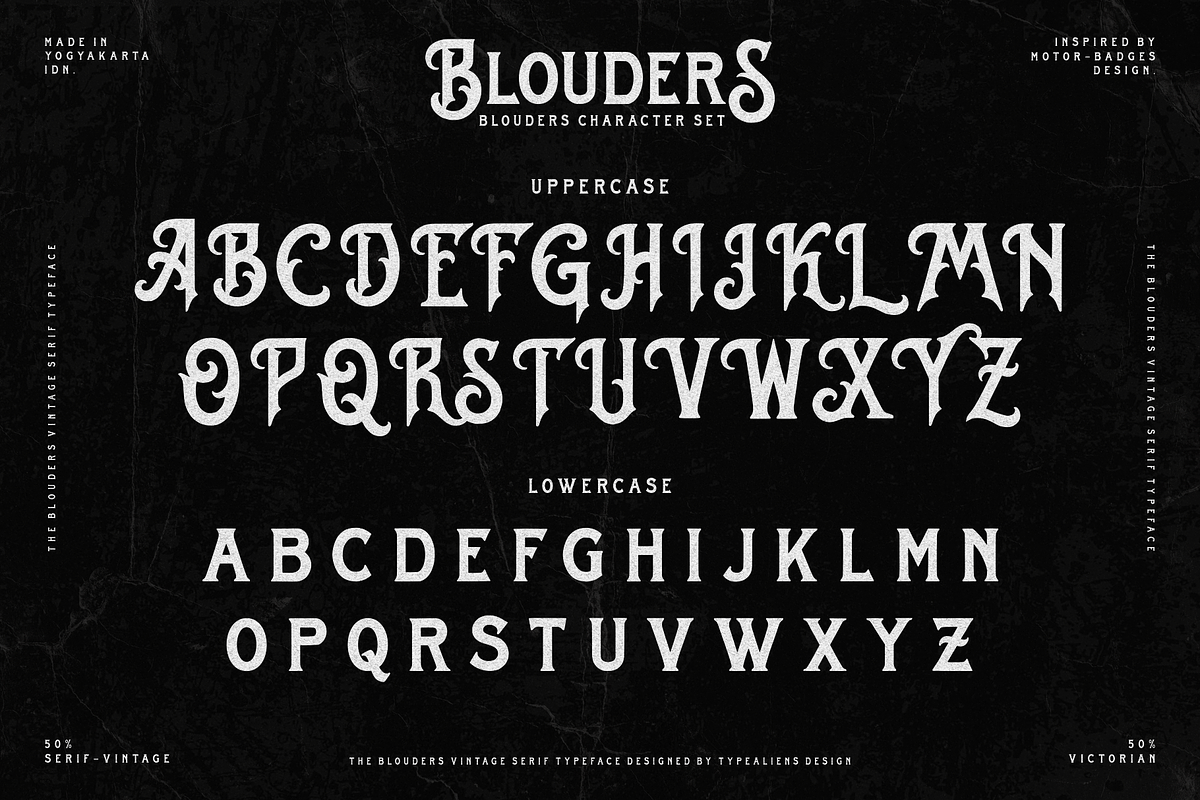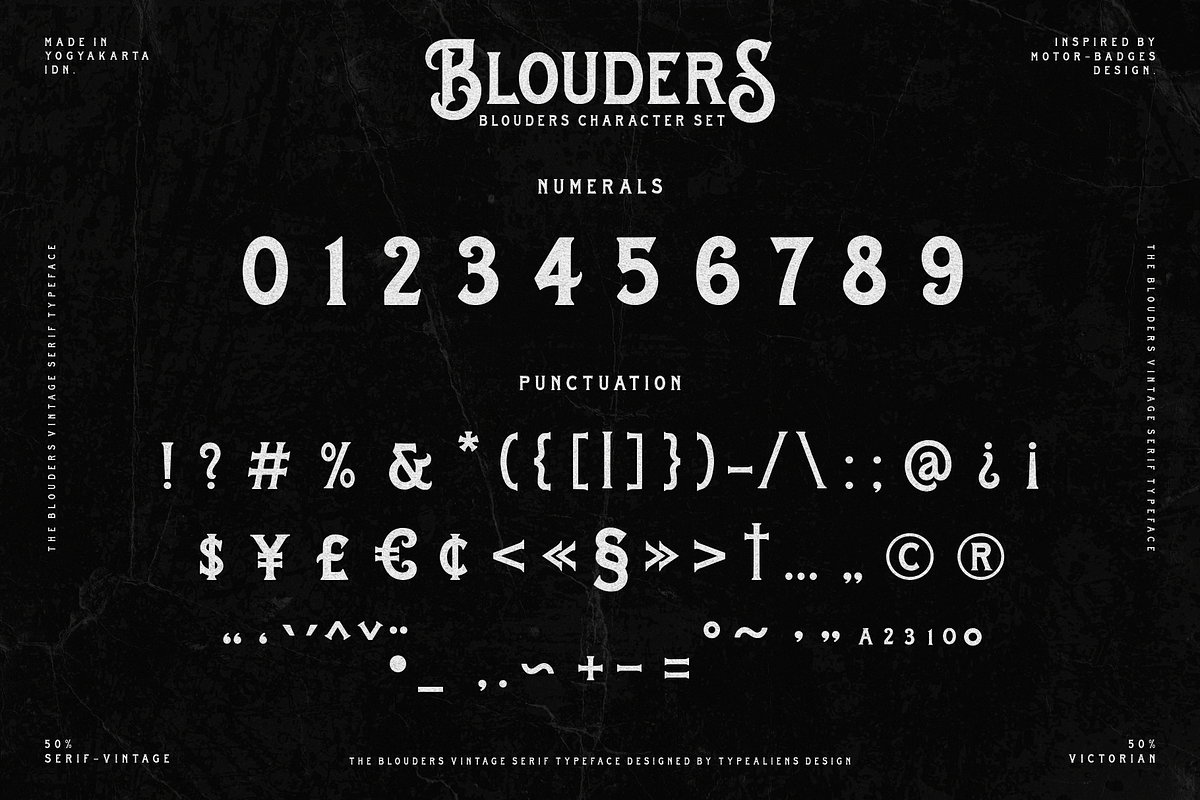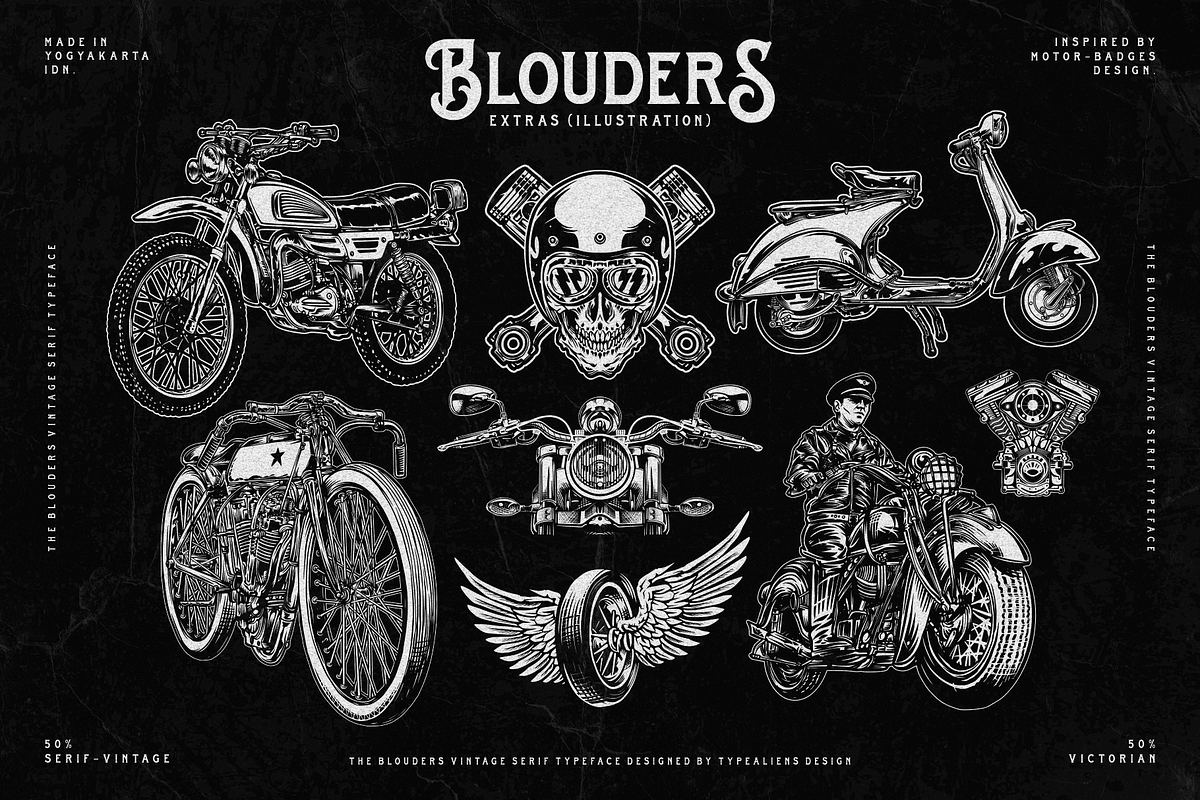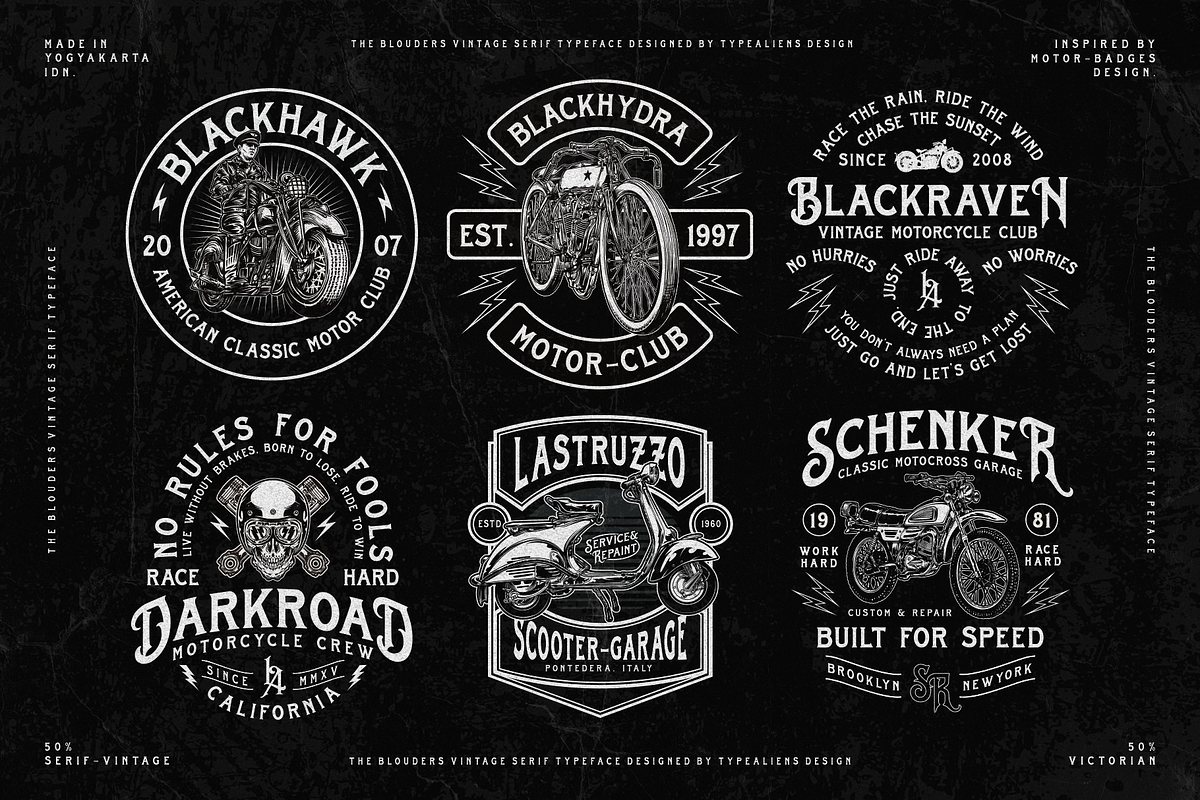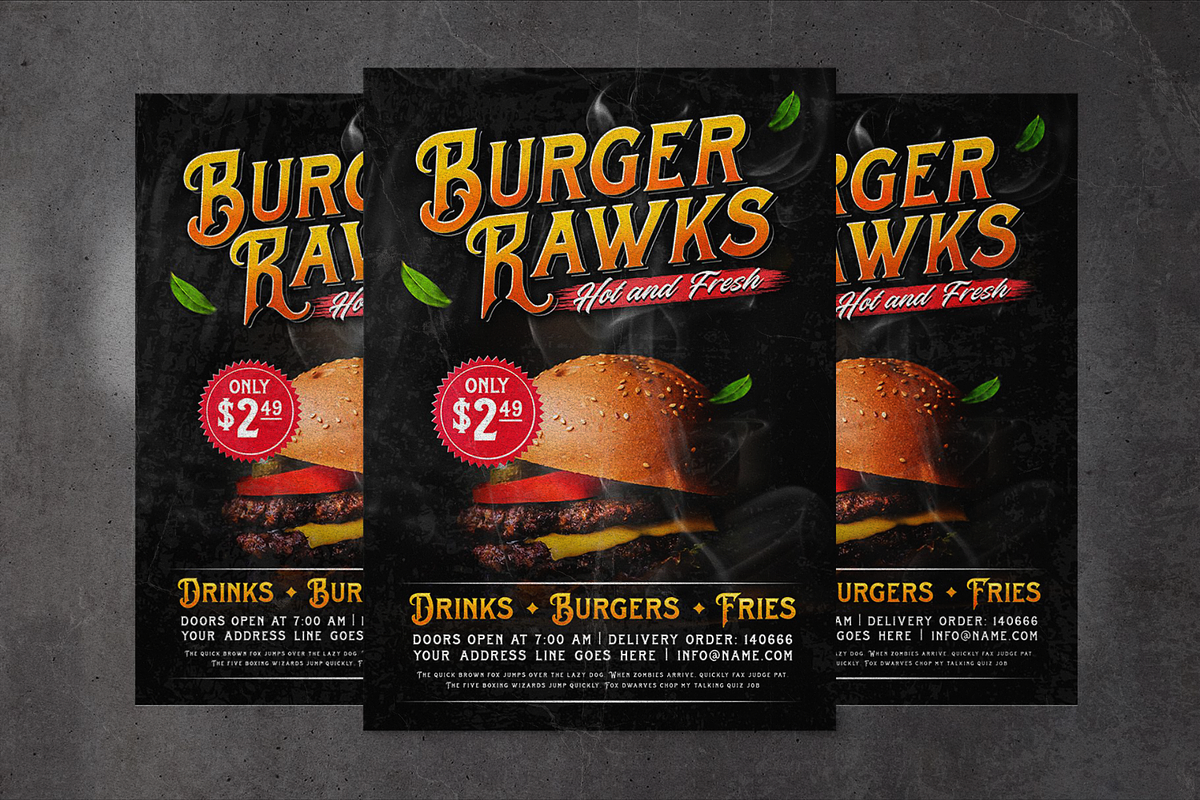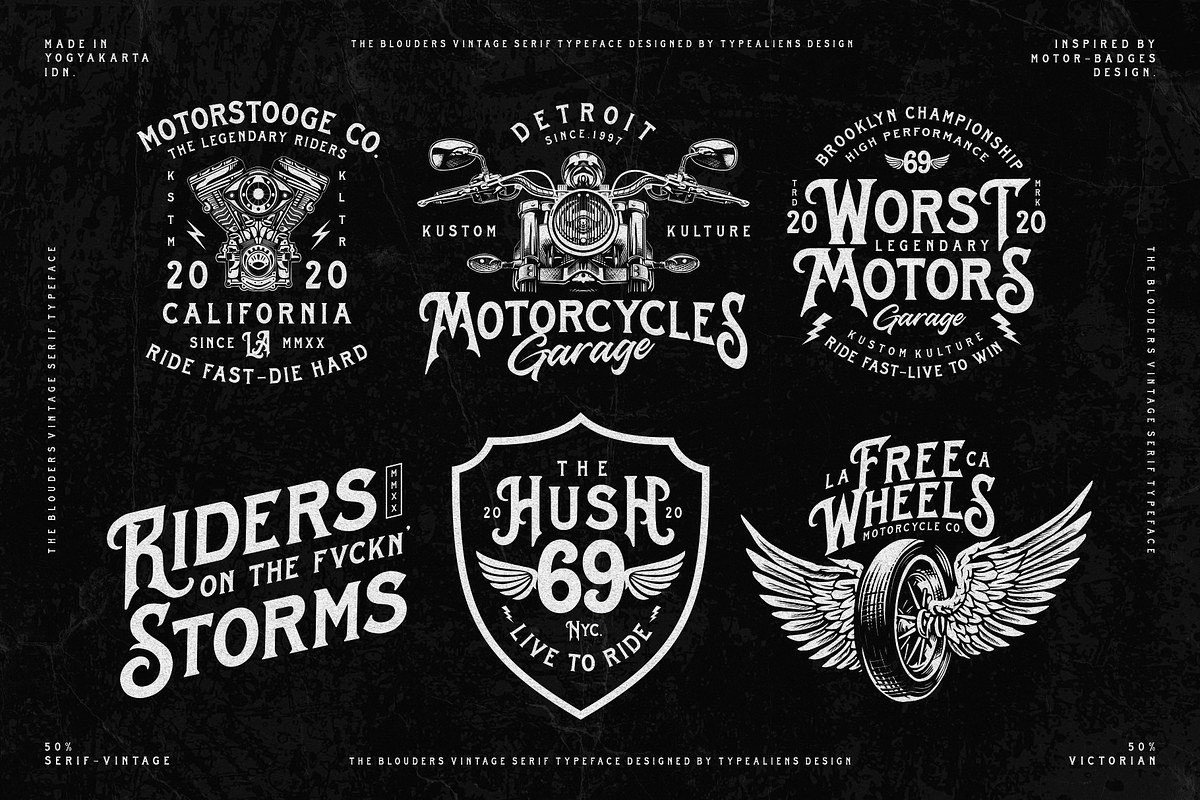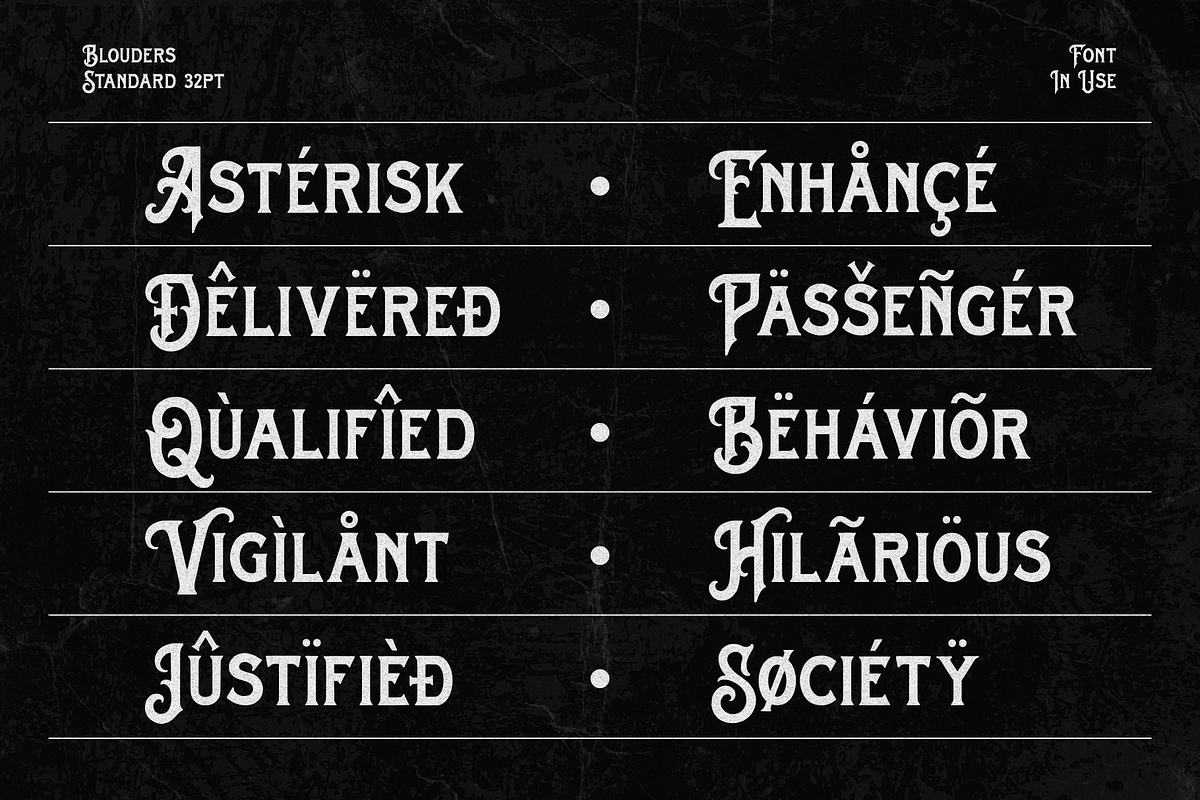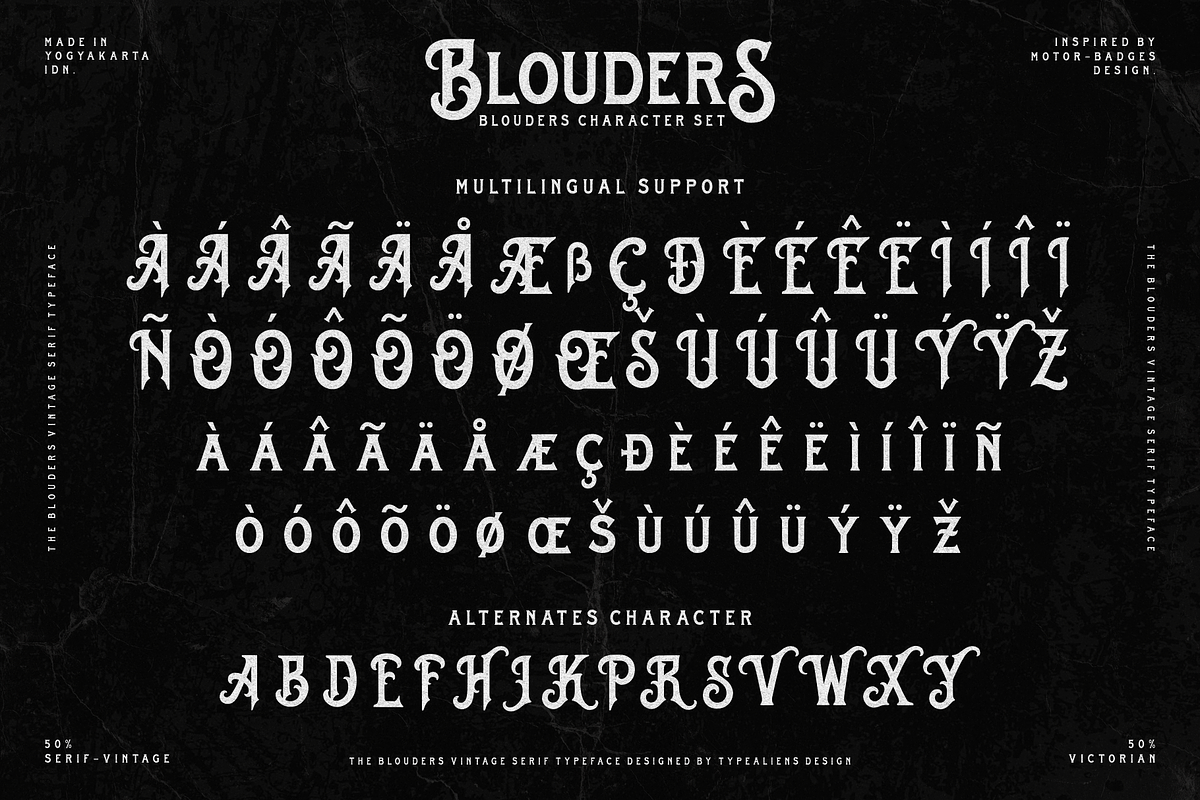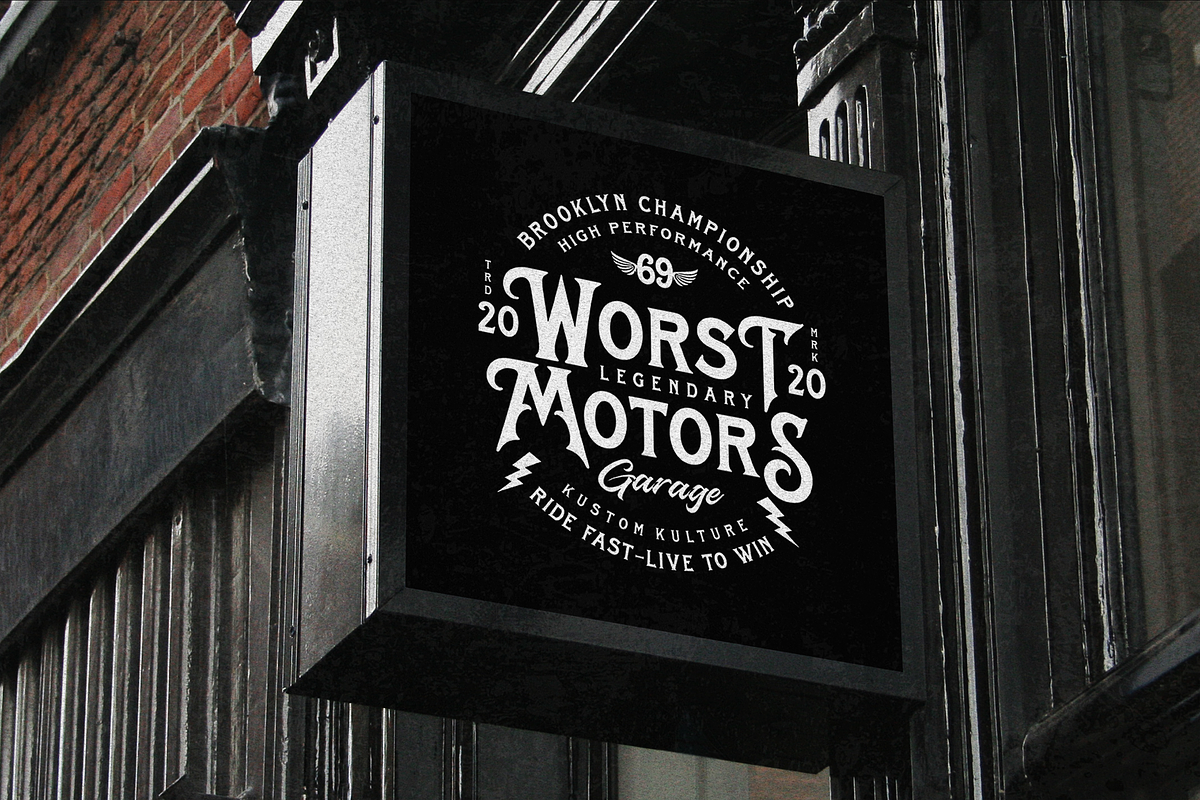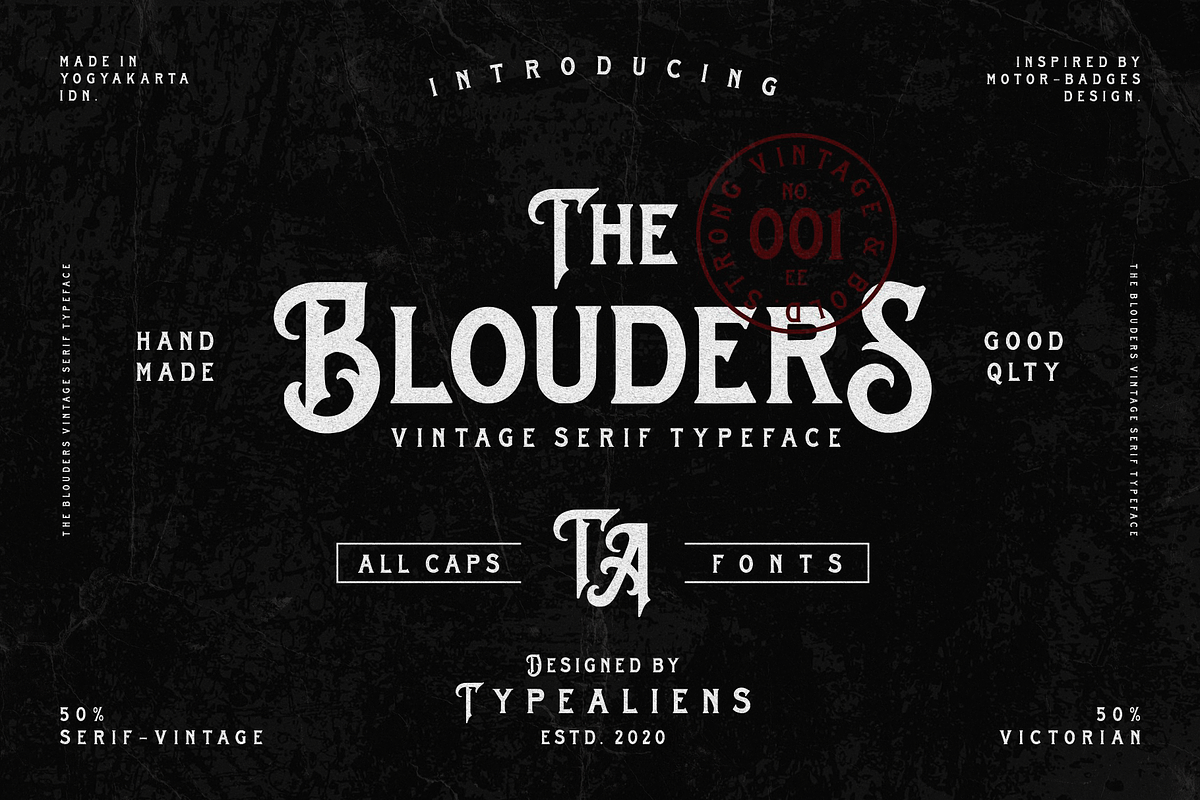
BLOUDERS
Blouders is a vintage font with a Victorian era style, adapted for classic or retro design needs, such as garage or motorcycle related badge designs. However, it's also a good idea to design a liquor label with an interesting combination of ornaments. This font is an All caps font, but the upper and lowercase letters have different shapes and letter heights, plus there are a few additional alternate characters in the uppercase.